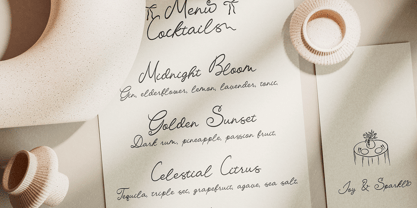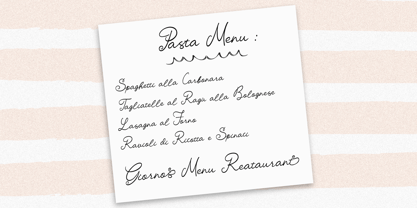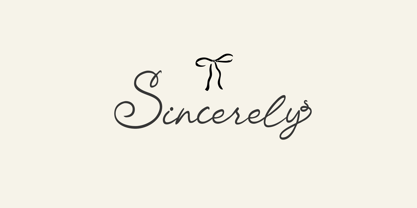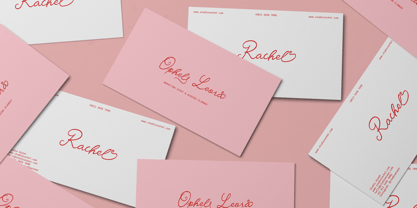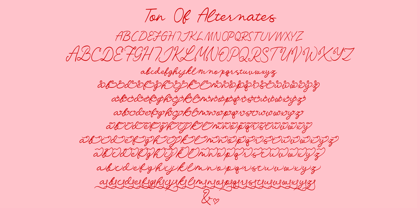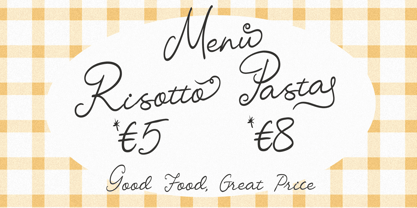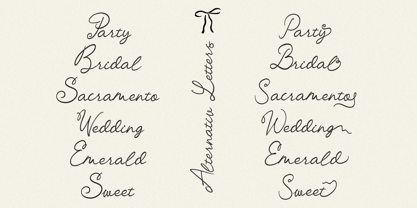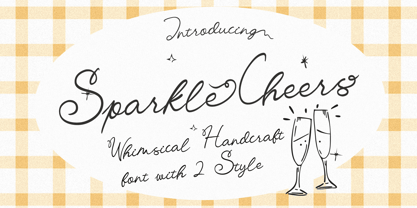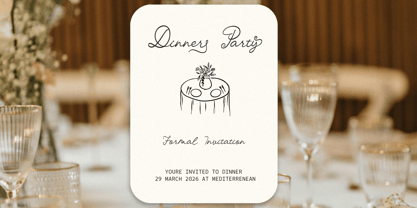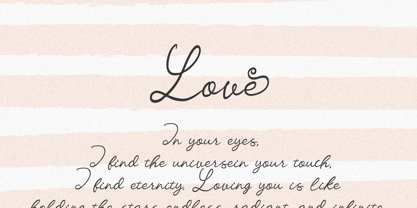
Sparkle Cheers
The Sparkle Cheers Font Family was designed by Laire Banyu, Dyaharum Pungki Revitasari and published by Jolicia Type. Sparkle Cheers contains 2 styles and family package options. More about this family
Sparkle Cheers is a playful whimsical handwritten script that brings a touch of magic and joy to every design. With its smooth strokes and charming curves, this font captures the spirit of celebration and creativity.
Available in two styles, Regular and Bold, Sparkle Cheers gives you flexibility to adapt from light, casual lettering to strong and striking headlines.
What makes this font truly special is the tons of alternate characters and ligatures included allowing endless possibilities to mix and match letters, creating unique and personalized looks every time.
Perfect for invitations, greeting cards, branding, social media, and any project that needs a lively yet elegant handwritten touch. With Sparkle Cheers, your words don’t just shine, they sparkle with personality.